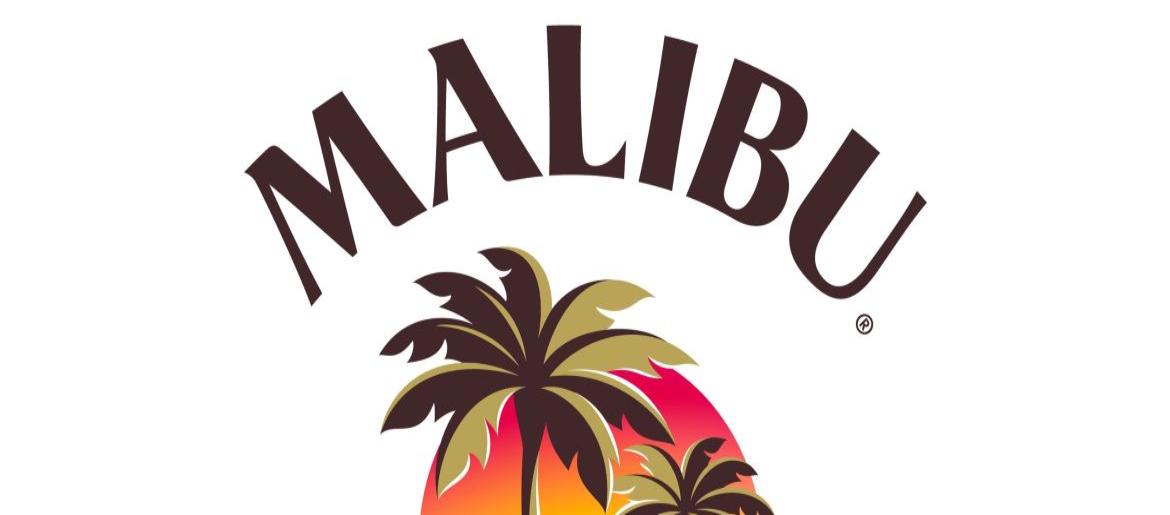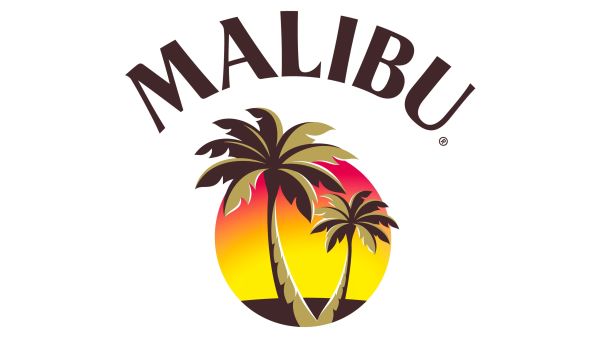
Malibu Font
What Font is Malibu?
The Malibu Font used in the brand’s logo has inspired a few close matches(Al Evagrande or Spirits Sharp Medium). Two premium fonts come particularly close to its look, but since those require licenses, we’ve also located a free alternative font that replicates the same breezy, relaxed, and slightly vintage style — perfect for projects inspired by Malibu’s aesthetic.
About Malibu
Malibu is a Caribbean rum brand known for its tropical vibes, beach culture imagery, and laid-back branding. Its visual identity—especially the logo typography—evokes sun, leisure, and a hint of retro charm. The font style leans toward wide letterforms, gentle curves, and a lighthearted character, fitting the brand’s sunny, vacation-oriented persona.